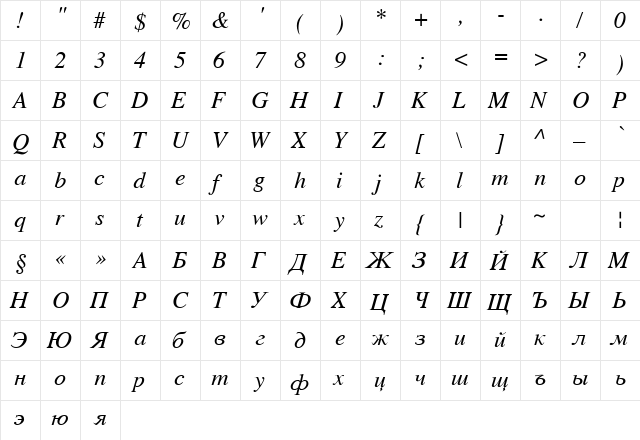
Pravda Italic
Design Context for Pravda Typeface
Pravda is a composed and adaptable typeface that performs quietly and consistently across a wide range of design contexts. The slanted form adds forward momentum and visual energy.